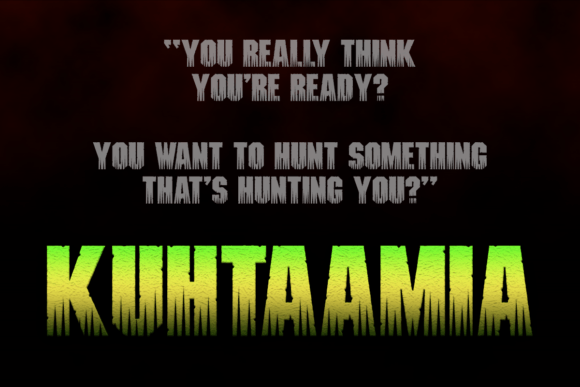
Kuhtaamia: A Distressed Display Font for Bold Visual Statements
In the ever-evolving world of design, typography plays a crucial role in conveying messages, emotions, and brand identities. One font that has recently captured the attention of designers, marketers, and creative professionals is Kuhtaamia. This display font, with its distinctive distressed aesthetic, offers a unique visual language that resonates across various industries. Whether you're a professional designer, an entrepreneur, or a content creator, understanding the significance of Kuhtaamia can help you make more informed choices in your work.
What is Kuhtaamia?
Kuhtaamia is a display font designed for large-scale use, typically at 18 points or higher, where its intricate details can be fully appreciated. The font’s most striking feature is its distressed look, which gives it an almost otherworldly appearance. It seems as though the characters have been slashed by claws or some form of extraterrestrial weapon, creating a sense of raw energy and intensity.
This aesthetic is not just about visual appeal; it's about storytelling. The distressed elements of Kuhtaamia evoke a sense of history, chaos, or even rebellion. It's a font that doesn't just sit on a page—it demands attention and invites interpretation.
How Kuhtaamia Fits Into Broader Trends
The rise of Kuhtaamia aligns with several broader trends in design, technology, and consumer behavior. In the creative industry, there's a growing preference for fonts that stand out and tell a story. As digital media becomes more saturated, designers are seeking ways to differentiate their work. Kuhtaamia offers a bold solution that can elevate any project, from branding to editorial design.
In the business world, the need for strong, memorable visual identities is more important than ever. Entrepreneurs and marketers understand that first impressions matter. A well-chosen font can make a brand more recognizable and impactful. Kuhtaamia, with its dramatic and unconventional style, provides a powerful tool for those looking to create a lasting impression.
From a technological perspective, the increasing availability of high-resolution displays and advanced design software has made it easier to incorporate complex fonts like Kuhtaamia into digital projects. Designers can now experiment with fonts that were once considered too intricate or difficult to use, opening up new creative possibilities.
Why People Are Paying Attention to Kuhtaamia
There are several reasons why Kuhtaamia has started to gain traction among professionals and enthusiasts alike. First and foremost, its unique aesthetic sets it apart from more traditional fonts. In a market where many fonts follow predictable patterns, Kuhtaamia offers something different—something that feels fresh and innovative.
Another factor is its versatility. While it's primarily a display font, it can also be used in limited contexts for body text, provided the design is carefully considered. Its distressed look can add a layer of depth and character to any composition, making it a valuable asset in both print and digital media.
Moreover, the cultural fascination with the unknown and the extraterrestrial has influenced the popularity of fonts like Kuhtaamia. The idea of something being "slashed" or "attacked" by an alien force taps into a collective imagination that is both intriguing and visually compelling. This connection to pop culture and speculative fiction makes Kuhtaamia particularly appealing to younger audiences and forward-thinking creatives.
Changing Needs and Preferences in Design
The design landscape is constantly evolving, and so are the needs and preferences of professionals. Today's creators are looking for tools that not only meet functional requirements but also reflect their personal style and vision. Kuhtaamia fulfills this need by offering a font that is both expressive and adaptable.
For instance, in the realm of branding, companies are increasingly looking for fonts that can convey a sense of strength, innovation, or authenticity. Kuhtaamia's aggressive and dynamic appearance can communicate these values effectively. It's a font that doesn't shy away from boldness, making it ideal for brands that want to make a statement.
In the field of editorial design, Kuhtaamia can be used to create eye-catching headlines or to emphasize key points in a narrative. Its distressed texture adds a tactile quality that can enhance the reader's experience, making the content more engaging and memorable.
Practical Examples and Observations
Several real-world applications demonstrate the effectiveness of Kuhtaamia in different contexts. For example, a tech startup might use Kuhtaamia in its logo to signal innovation and disruption. The font's aggressive look can suggest a company that is not afraid to challenge the status quo.
In the entertainment industry, Kuhtaamia could be used for movie posters or album covers that aim to capture a sense of danger or mystery. Its alien-inspired aesthetic aligns well with genres such as sci-fi, horror, and action, making it a popular choice among filmmakers and musicians.
In a world where differentiation is key, Kuhtaamia stands out as a font that not only captures attention but also tells a story. Its relevance is rooted in its ability to connect with current trends, address changing needs, and inspire new forms of creative expression. As the design landscape continues to evolve, fonts like Kuhtaamia will play an essential role in shaping the future of visual communication.